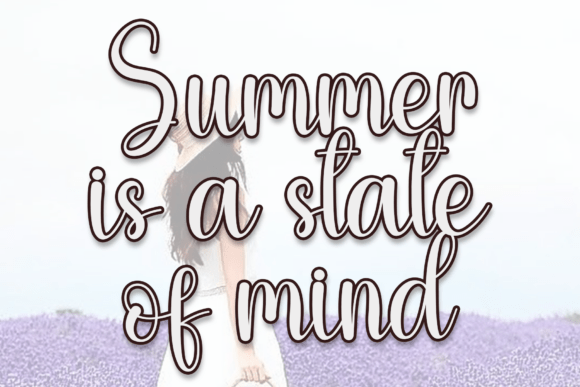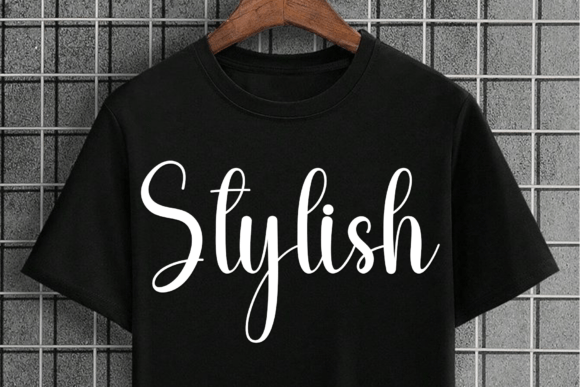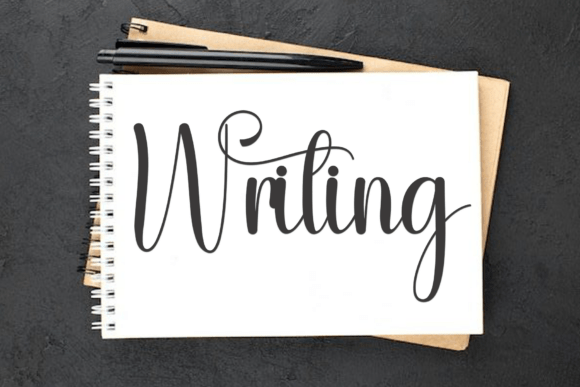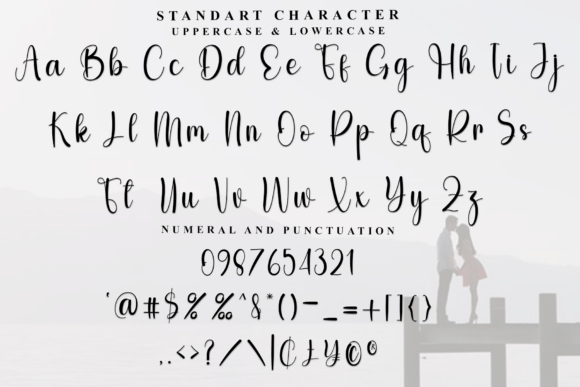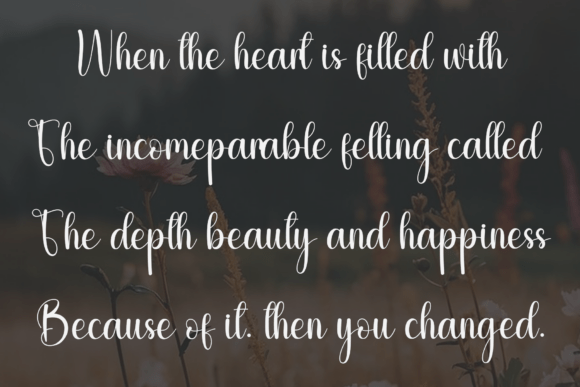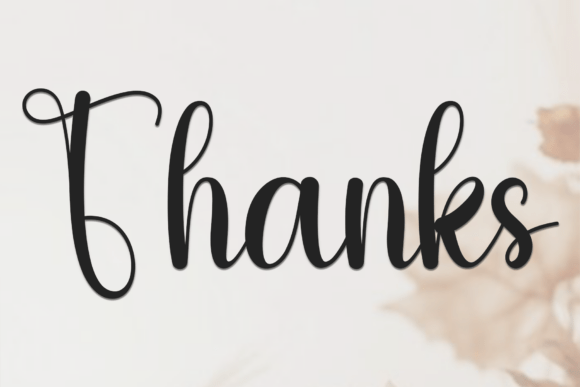
Introduction to Dentis Font
Remember the moment when you finally found the perfect font for your design project? The one that instantly elevates your ideas and brings your vision to life? For designers, this moment is a game-changer. And for those looking for a unique design resource, the Dentis Font is a hidden gem waiting to be discovered.
With its soft, distinctive strokes and special character, the Dentis Font is perfect for designers seeking a high-quality font that adds a personal touch to their creative projects. Whether you’re working on a craft, a graphic design, or any other artistic endeavor, this versatile font is an excellent choice. Plus, its compatibility with various applications, including Windows and open-source platforms, makes it a valuable asset for designers of all levels.
Key Features of Dentis Font
- High-quality design resource perfect for creative projects, including logos, branding, and graphics.
- Features a transparent background, allowing for seamless integration with any design or image.
- Includes a range of characters, including uppercase and lowercase letters, numbers, and punctuation, making it a versatile design tool.
- Designed with a modern and sleek aesthetic, making it perfect for contemporary creative projects.
Honest Review: Dentis Font
The Dentis Font is a free download that offers a unique and modern aesthetic. One of the standout features is its transparent background, which makes it perfect for use on various design elements, from logos to icons.
- ✨ Unique and modern design style
- ✨ High-quality font with crisp lines and clear typography
- ✨ Transparent background makes it versatile for various design elements
- ⚠️ Limited character set and language support
- ⚠️ Not suitable for complex typography or large-scale text
Overall, the Dentis Font is a solid addition to any designer’s toolkit. While it may have some limitations, its unique design style and high-quality typography make it a great choice for smaller-scale creative projects. With a little creativity, this font can add a touch of modernity to your designs.